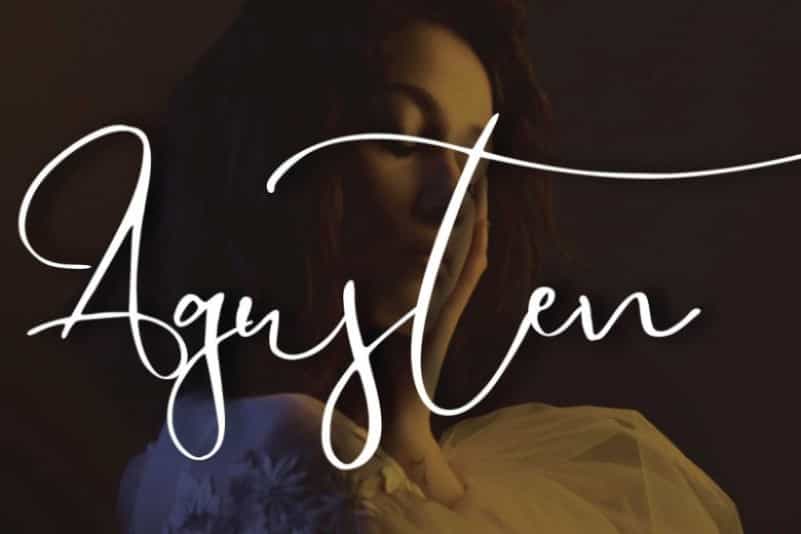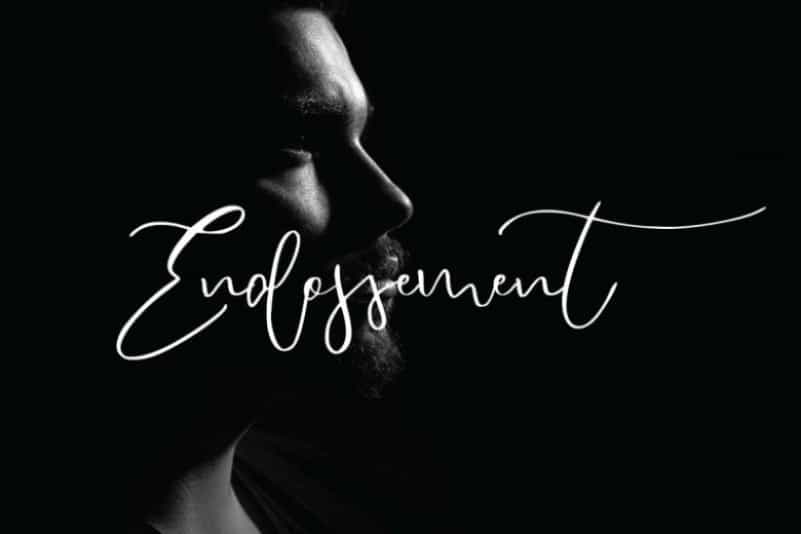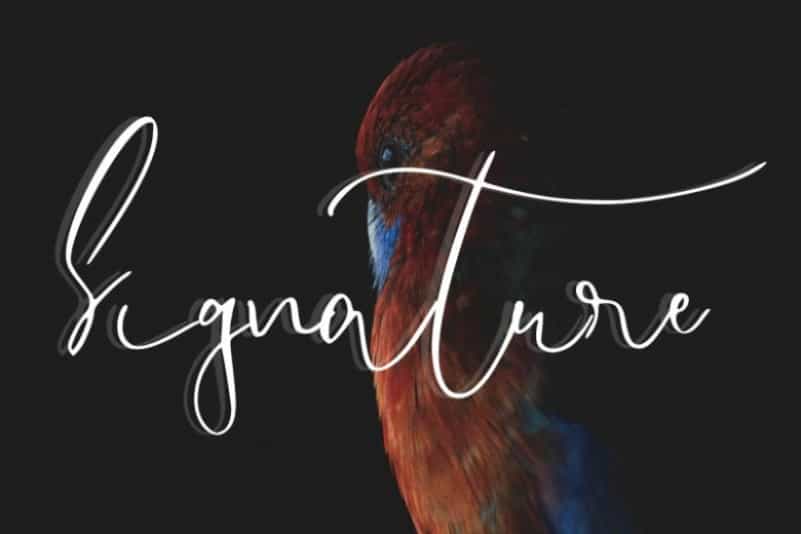
Endossement – a new and modern style of calligraphy font, decorative characters and a dancing baseline! Thus, they are perfect for invitations such as greeting cards, branding materials, business cards, quotes and posters.